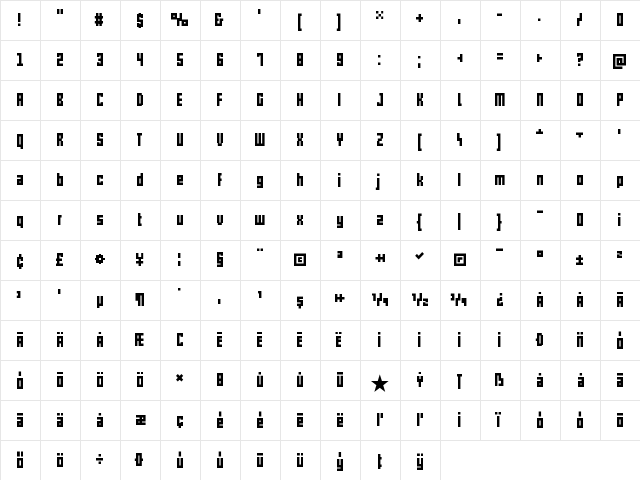
pxlxxl Regular
Design Context for pxlxxl Typeface
pxlxxl takes a measured approach to typography — its balanced proportions and neutral character make it a reliable workhorse for both digital and print work.